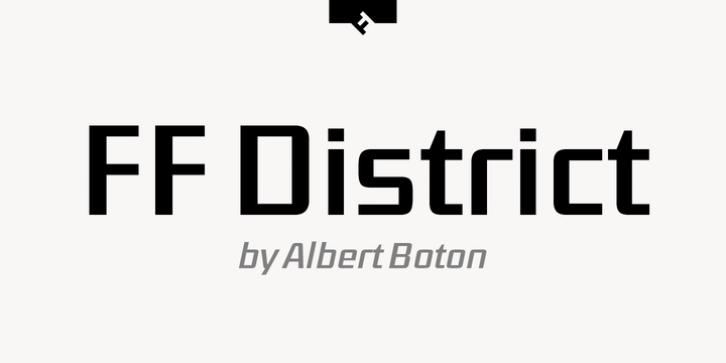
FF District downloadDesigner: Albert Boton
Publisher: FontFont
French type designer Albert Boton created this display and sans FontFont in 2004.
The family has 8 weights, ranging from Light to Bold (including italics) and is ideally suited for advertising and packaging, film and tv, editorial and publishing, logo, branding and creative industries as well as software and gaming.
FF District provides advanced typographical support with features such as ligatures, alternate characters, and case-sensitive forms.
It comes with tabular lining and proportional lining figures.